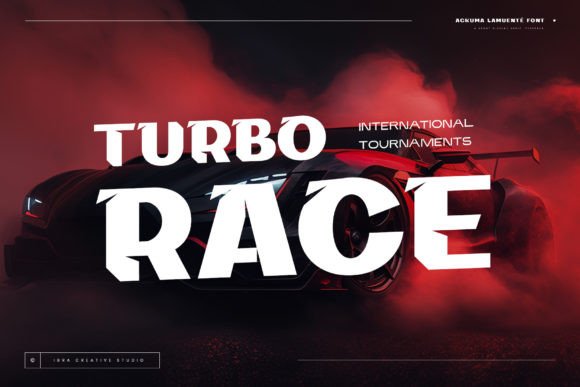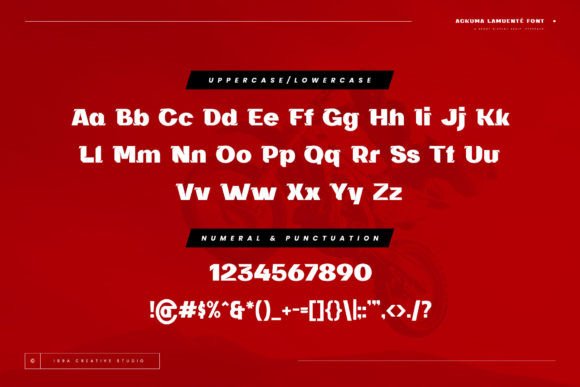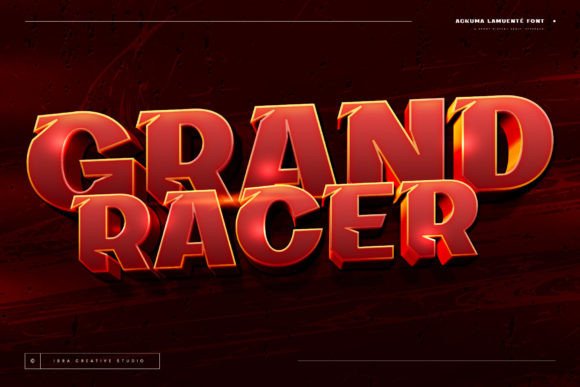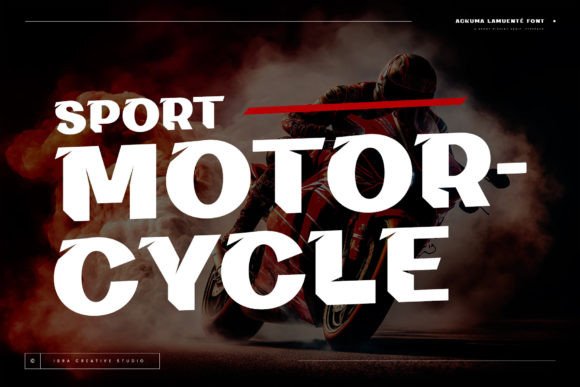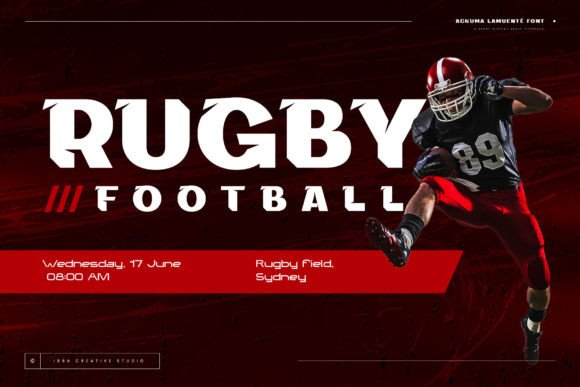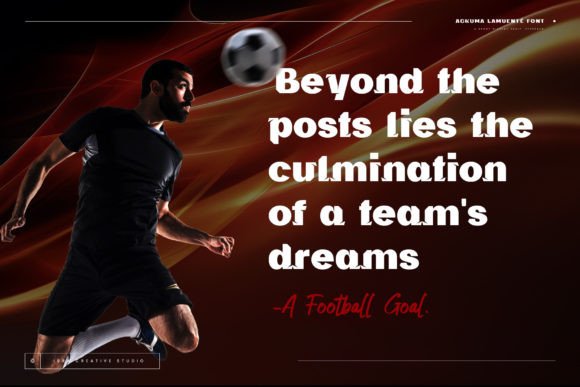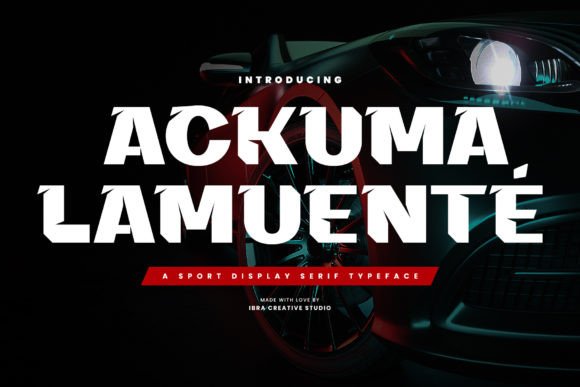
Ackuma Lamuenté Font: Elevate Your Designs with a Striking Sport Display Serif
In the world of typography, few fonts manage to strike a balance between classic elegance and bold, contemporary flair. Ackuma Lamuenté, a striking Sport Display Serif typeface, is one such exceptional design that seamlessly merges these seemingly disparate elements. With its sharp, angular serifs and dynamic letterforms, Ackuma Lamuenté exudes a sense of strength and athleticism, making it an ideal choice for sports-related designs, branding, and editorial layouts.
The Distinctive Characteristics of Ackuma Lamuenté
Ackuma Lamuenté’s distinctive characteristics are evident in its sharp, angular serifs, which give the typeface a bold and edgy feel. The dynamic letterforms, with their subtle nuances and refined details, add a touch of sophistication and elegance. This unique blend of classic and modern elements makes Ackuma Lamuenté a standout in the world of typography.
The typeface’s robust presence is perfect for designs that require a strong visual impact. Whether you’re creating a logo, poster, or editorial layout, Ackuma Lamuenté is sure to grab attention and leave a lasting impression. Its refined aesthetic ensures that the typeface remains versatile and adaptable, making it suitable for a wide range of design applications.
Why Choose Ackuma Lamuenté for Your Designs?
So, why should designers and crafters choose Ackuma Lamuenté for their projects? Here are just a few compelling reasons:
- Sports-related designs: Ackuma Lamuenté’s sporty, dynamic feel makes it an ideal choice for designs related to sports, fitness, and wellness. Whether you’re creating a logo, jersey, or promotional material, this typeface is sure to score a touchdown.
- Branding: With its bold, confident presence, Ackuma Lamuenté is perfect for branding projects that require a strong visual identity. Use it to create a memorable logo, packaging design, or advertising campaign that stands out from the crowd.
- Editorial layouts: Ackuma Lamuenté’s refined aesthetic and robust presence make it an excellent choice for editorial layouts, such as magazine covers, articles, and blog posts. Use it to add a touch of sophistication and elegance to your designs.
Tips for Using Ackuma Lamuenté Effectively
To get the most out of Ackuma Lamuenté, here are a few tips to keep in mind:
- Use it boldly: Ackuma Lamuenté is a bold, attention-grabbing typeface. Use it in large sizes to make a statement, or in smaller sizes to add a touch of sophistication to your designs.
- Experiment with colors: Ackuma Lamuenté looks great in a variety of colors, from bold and bright to subtle and muted. Experiment with different color schemes to find the perfect combination for your design.
- Pair it wisely: Ackuma Lamuenté pairs well with a range of typefaces, from sans-serif fonts to script fonts. Experiment with different pairings to find the perfect match for your design.
Ackuma Lamuenté is a striking Sport Display Serif typeface that seamlessly merges classic elegance with a bold, contemporary flair. With its sharp, angular serifs and dynamic letterforms, this typeface exudes a sense of strength and athleticism, making it an ideal choice for sports-related designs, branding, and editorial layouts. Whether you’re a designer, crafter, or typography enthusiast, Ackuma Lamuenté is sure to inspire and elevate your designs.